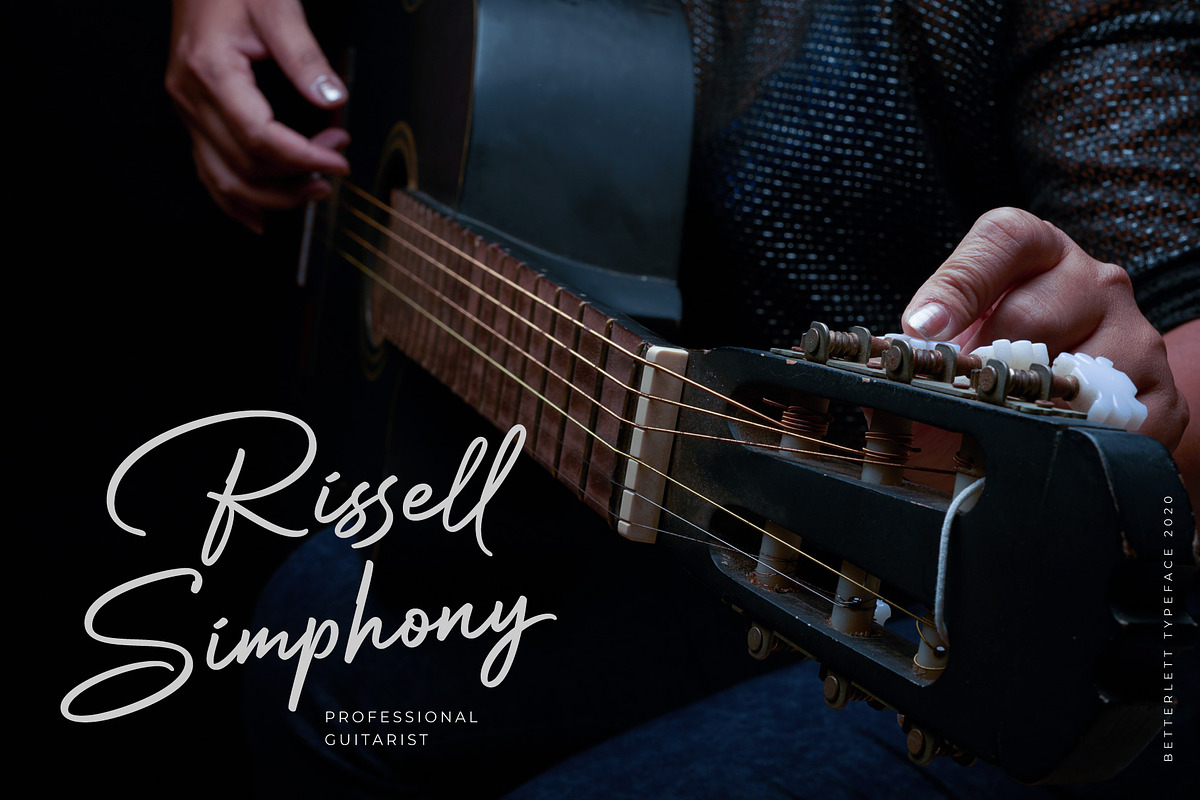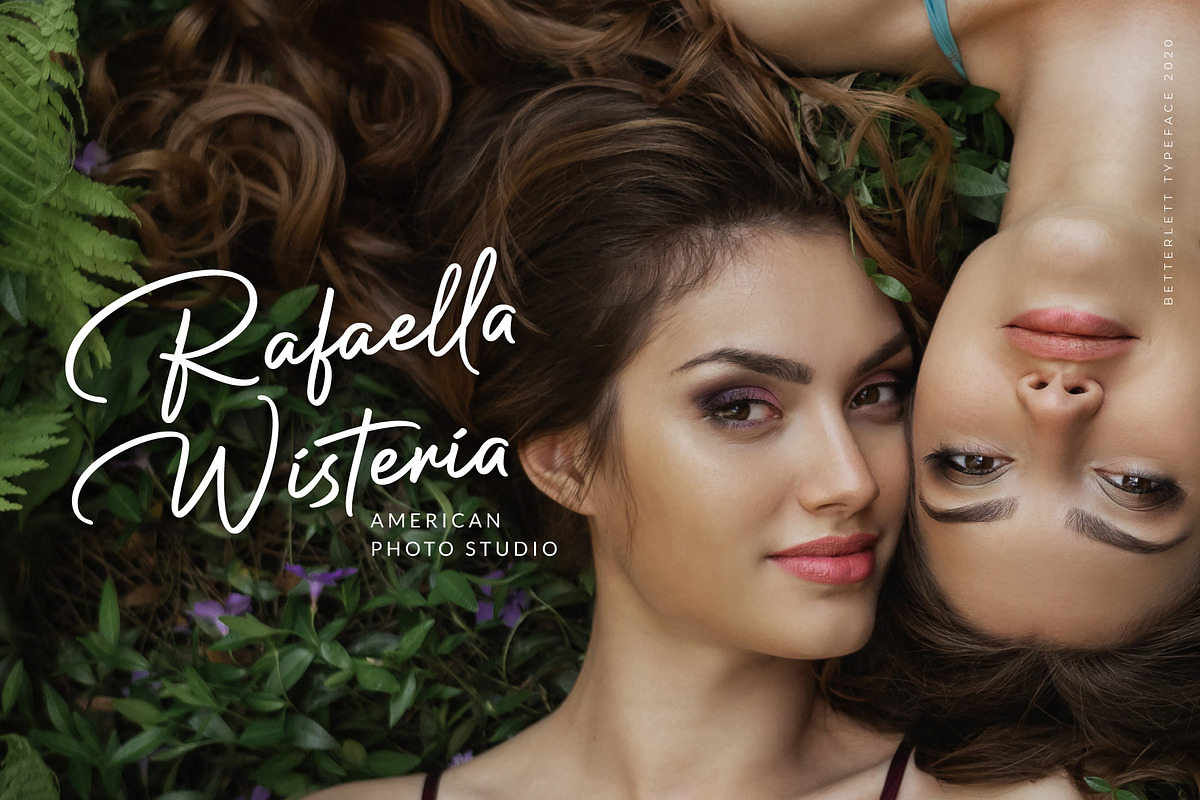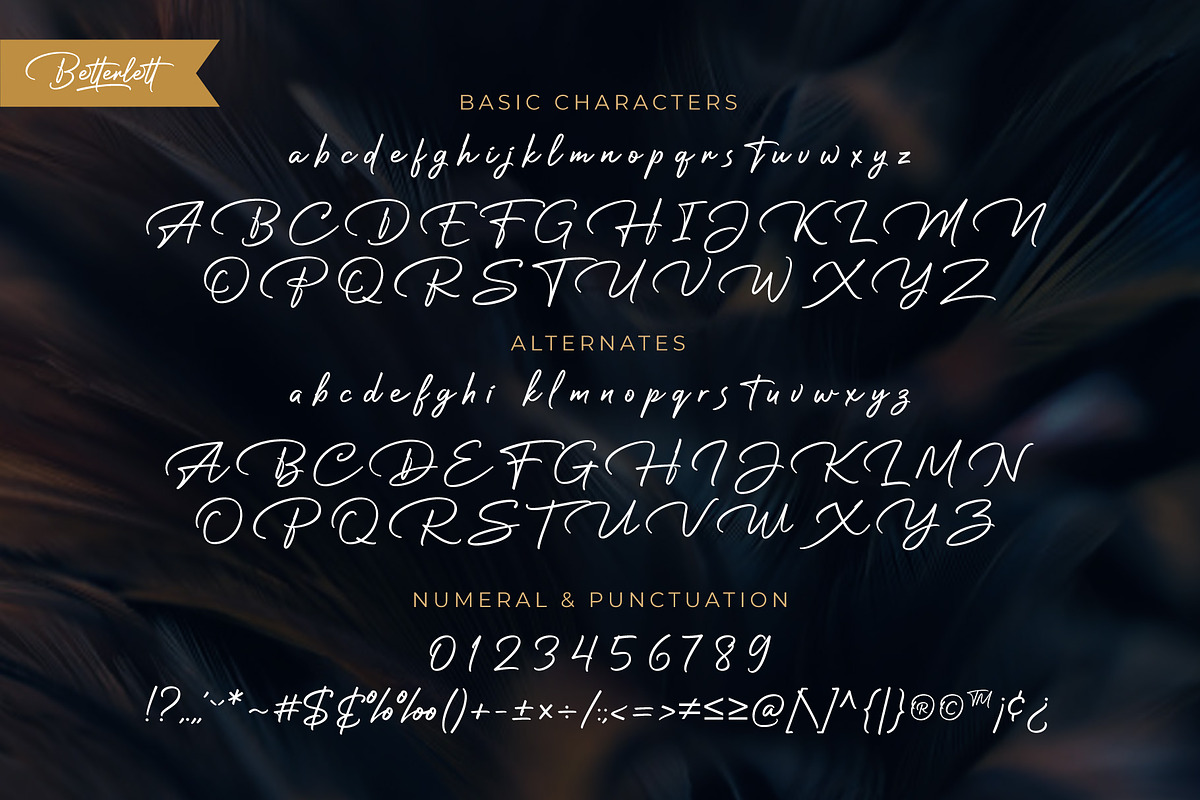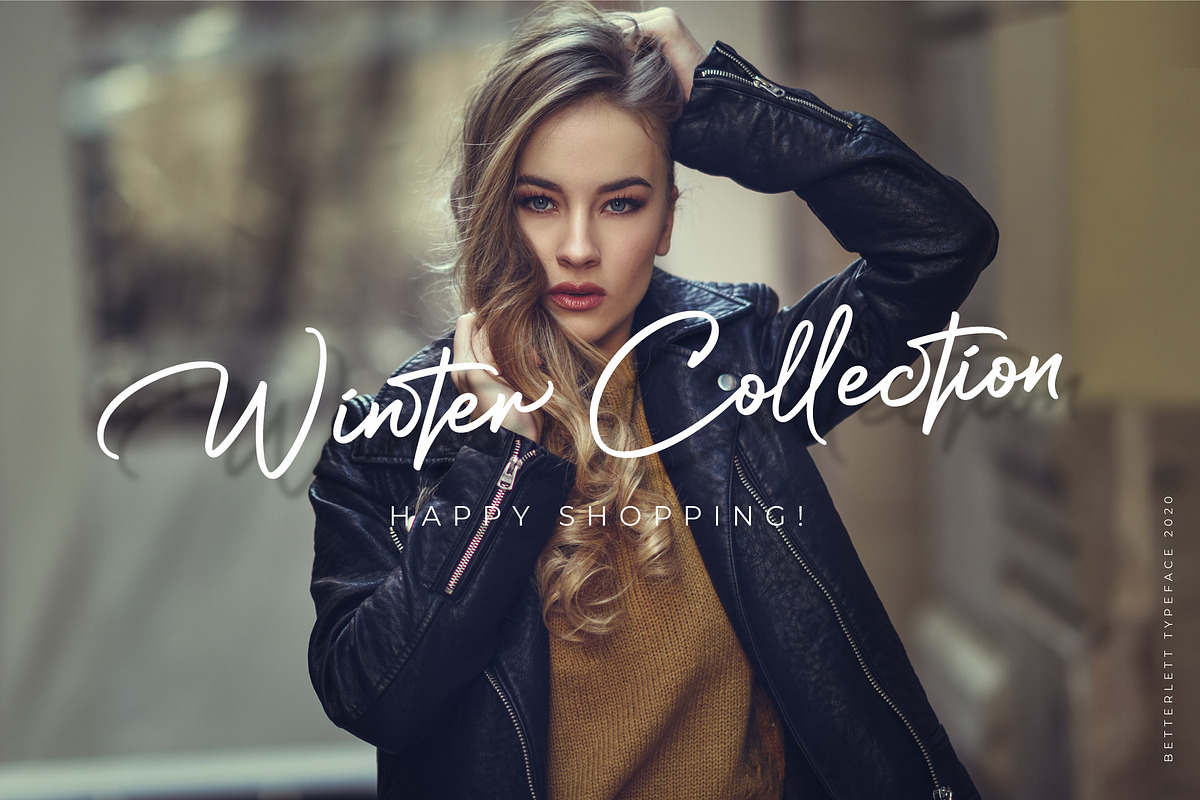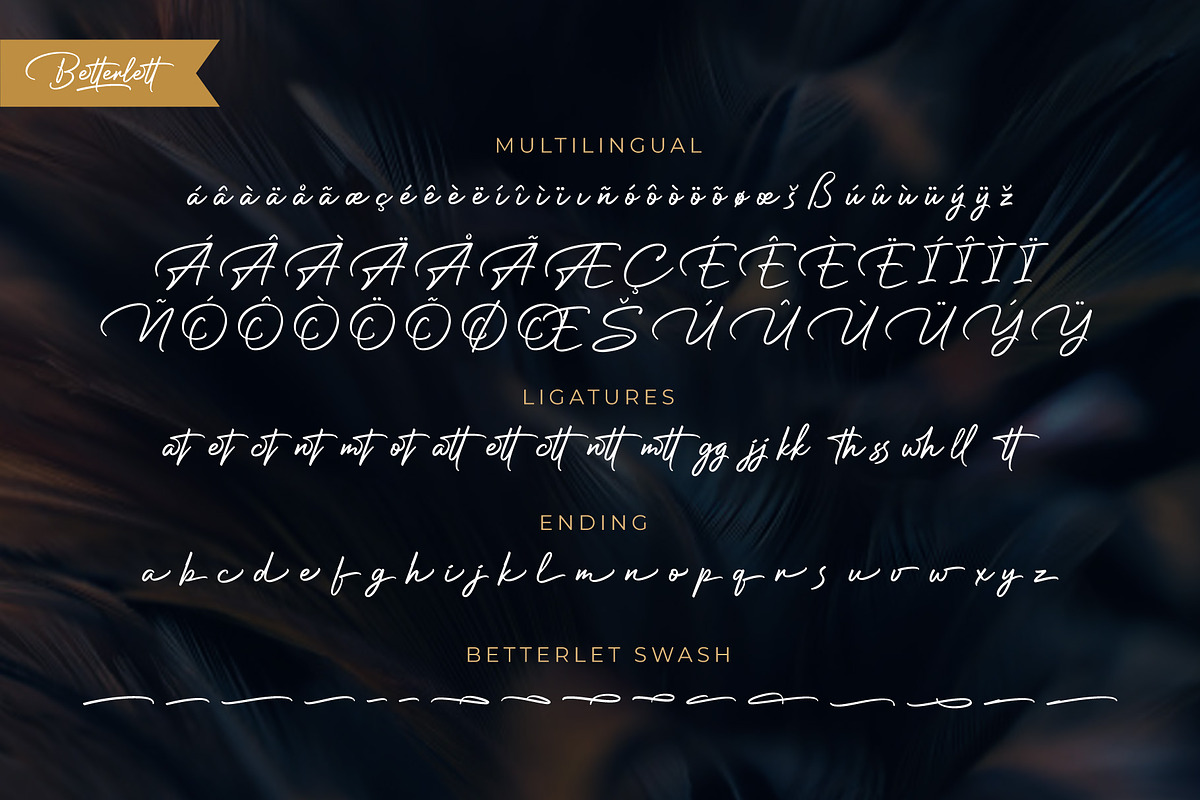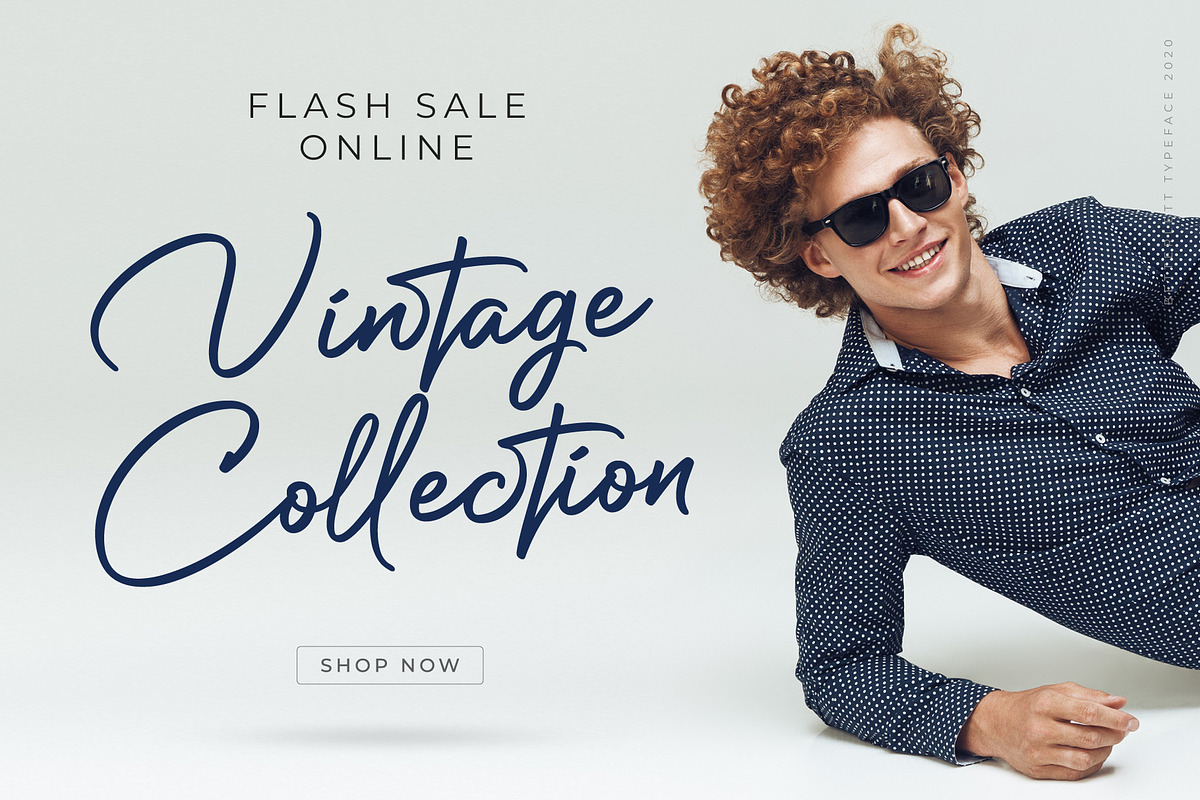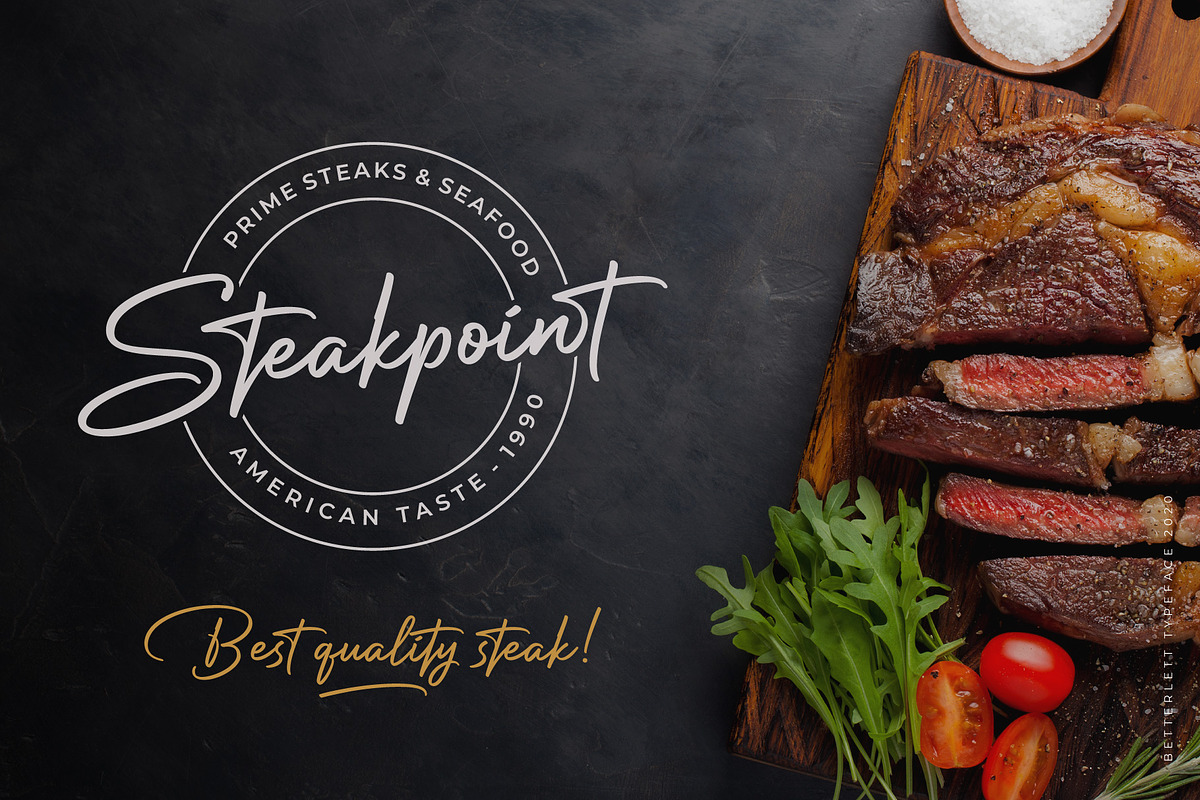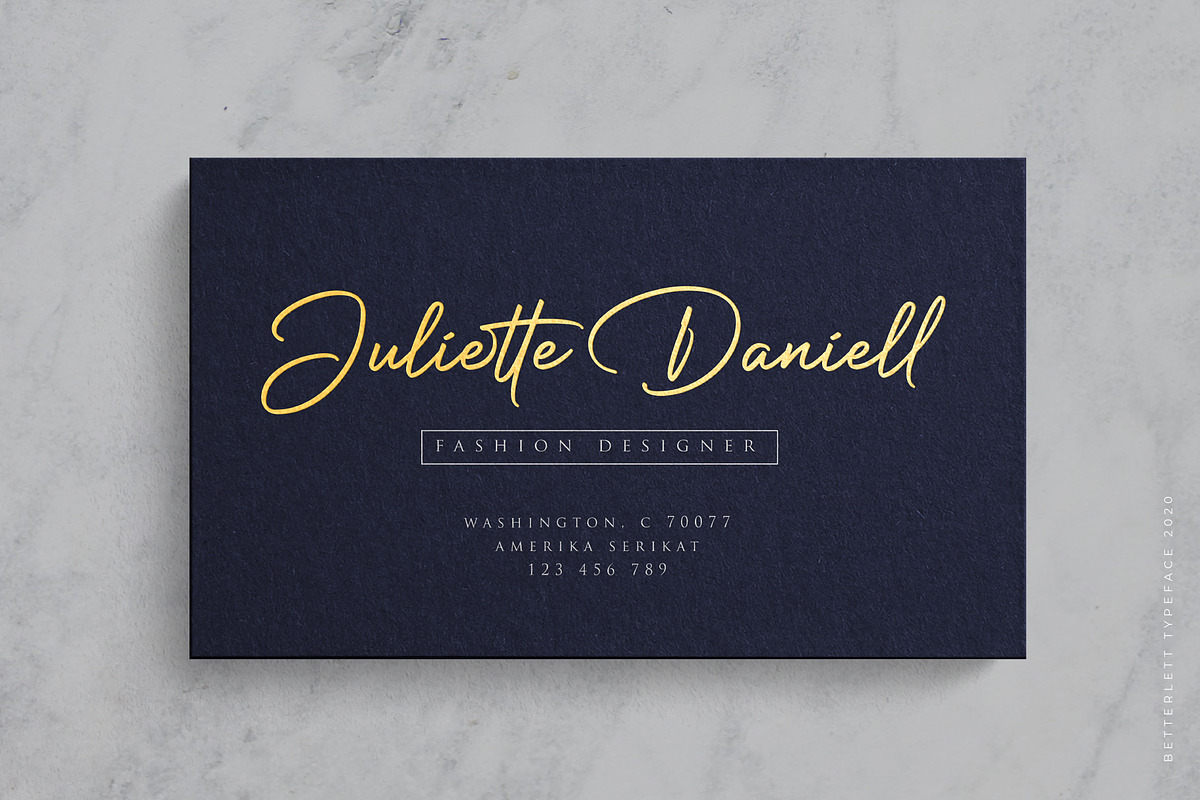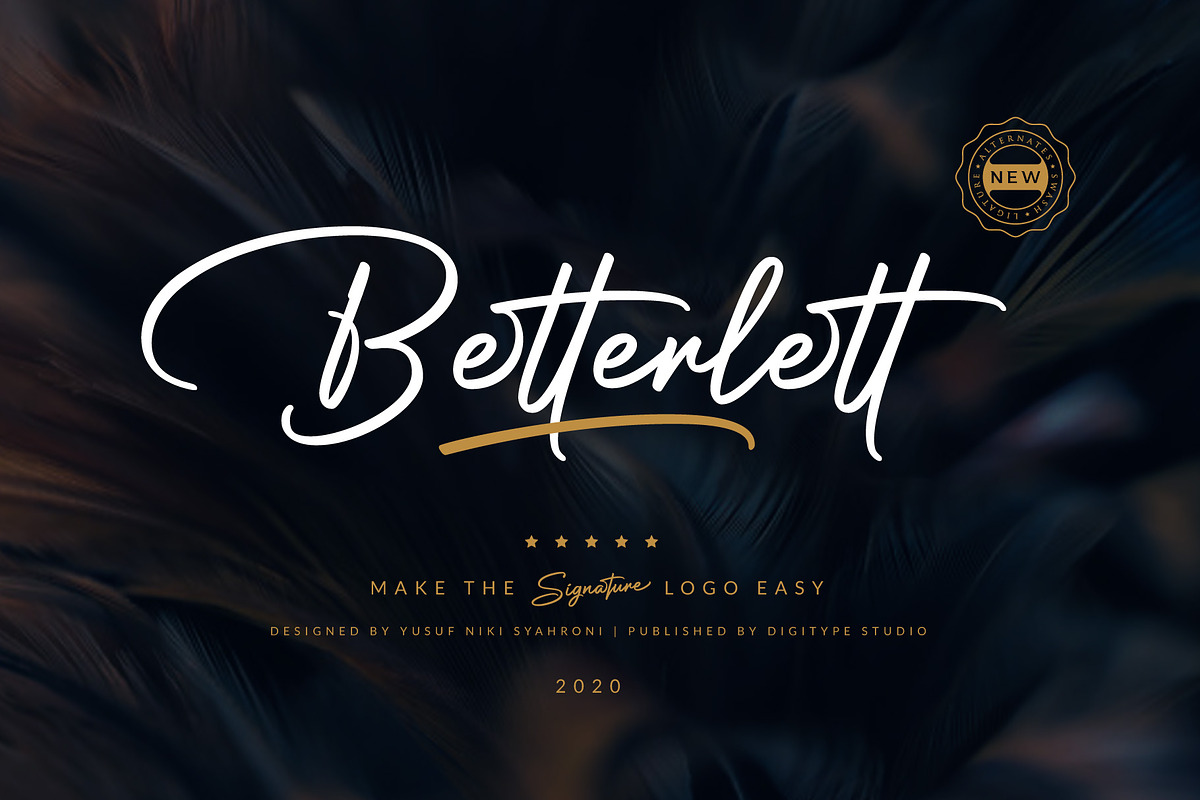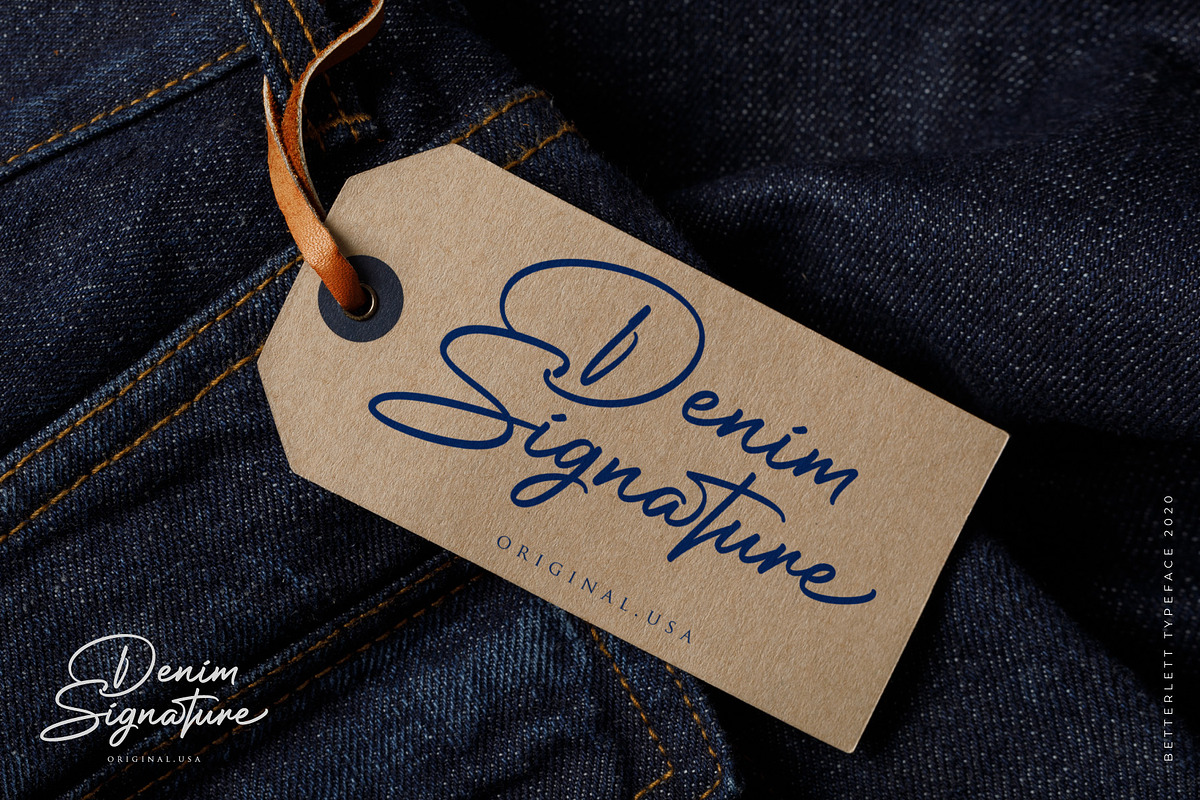
Betterlett
Betterlett is a classy handwritten font, designed to make it easy to create professional signature logos, photo logos, labels, packaging, fashion, or any type of advertising purpose for both personal and corporate use. It contains stylistic alternates, ligatures, swashes, and multilingual support.